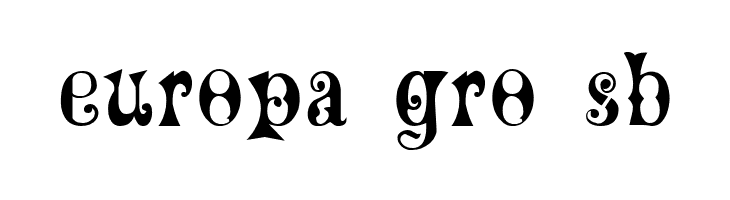
( Fonts by Daniel Gauthier )
A bold, decorative font with intricate line patterns and a strong, blocky structure.
A playful, bold, handwritten-style font with thick, rounded strokes.
A bold, outlined font with a modern and playful style, featuring geometric shapes and rounded edges.
( Fonts by Daniel Gauthier )
A bold, 3D outline font with a playful yet structured aesthetic.
( Fonts by Boba Fonts )
A bold, angular font with a futuristic, sci-fi aesthetic.
( Fonts by Daniel Gauthier )
A bold, decorative font with leaf motifs on each character, perfect for playful and eye-catching designs.
A distressed, grungy font with an ink-splattered appearance.
( Fonts by Ben Nathan )
A bold, distressed font with a rough, textured appearance ideal for grunge or horror themes.
( Fonts by Daniel Gauthier )
A bold, playful font with exaggerated, dynamic characters.
( Fonts by Christopher Hansen )
A bold, playful font with irregular, jagged characters and a hand-drawn feel.
( Fonts by billyargel.blogspot.com - Billy Argel )
A playful, hand-drawn font with a bold and quirky style.
A bold, playful font with a distressed, artistic style.
( Fonts by billyargel.blogspot.com - Billy Argel )
A playful, hand-drawn font with irregular, whimsical characters.
A bold, playful font with a three-dimensional outline and shadow effect.
A playful, bold outline font with uniform letterforms and a striking visual impact.
A playful, bold font with jagged edges and a hand-drawn aesthetic.
A bold, condensed, and playful handwritten font with rounded, slanted characters.
A bold, playful font with thick, exaggerated curves and a whimsical style.
A bold, italic font with dynamic slant and strong visual impact.
A bold, playful font with a slightly condensed and dynamic style.
( Fonts by Anita Wainer - www.jamondelmar.com )
A bold, vintage-inspired font with strong, thick strokes and clear readability.
A bold, playful font with a dynamic, graffiti-inspired style.
( Fonts by Thomas Ledin - tomledin.com )
A bold, three-dimensional font with a playful and dynamic appearance.
( Fonts by Koczman Balint - magiquefonts.gportal.hu )
A bold, decorative serif font with ornate detailing and vintage flair.